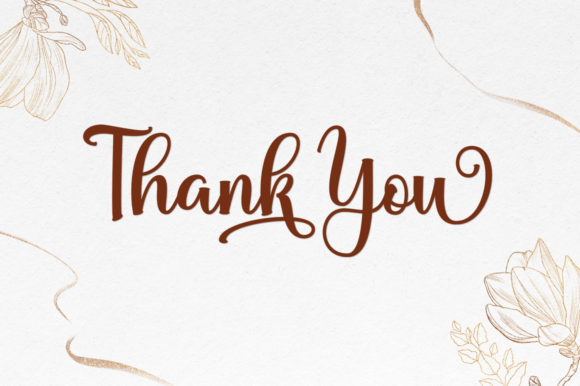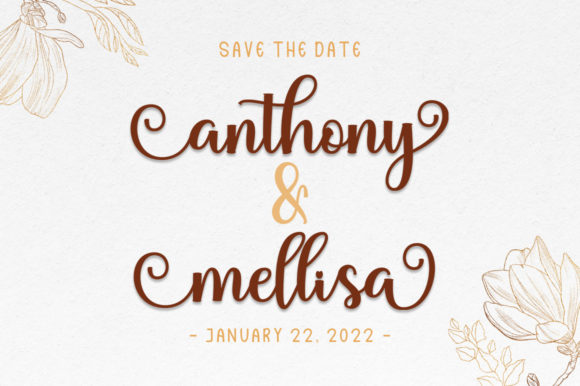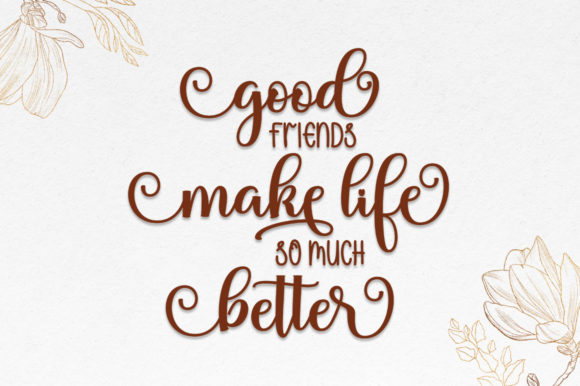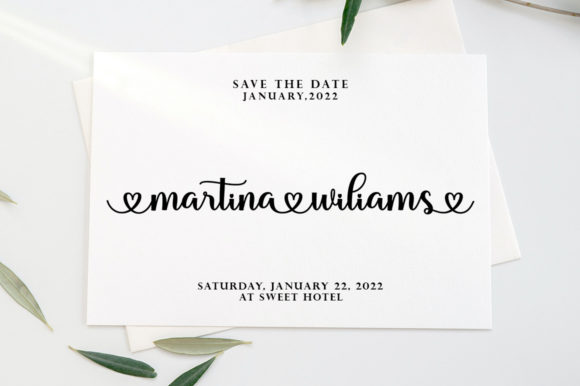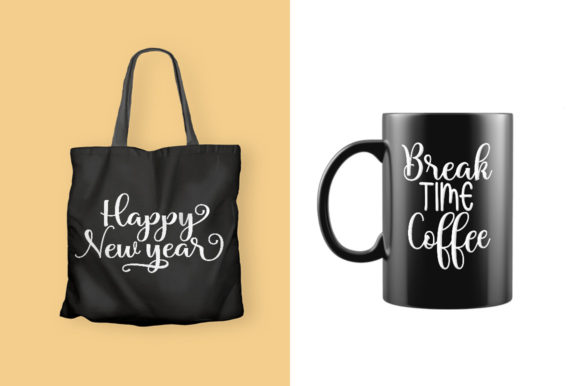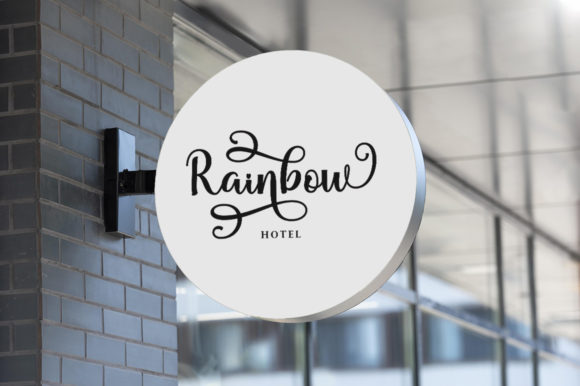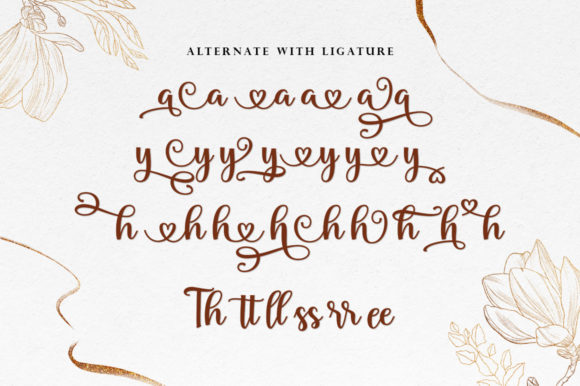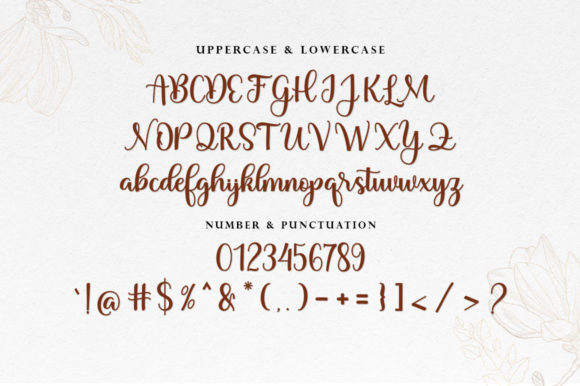
Blantone Script Font
About Blantone Script Font
Blantone Script is a soft and sweet calligraphic typeface, with characters dancing along the baseline. It has a casual and elegant touch. It can easily be matched to various topics such as logos, wedding invitations, headings, t-shirts, letterheads, signage, labels, news, posters, badges and more.